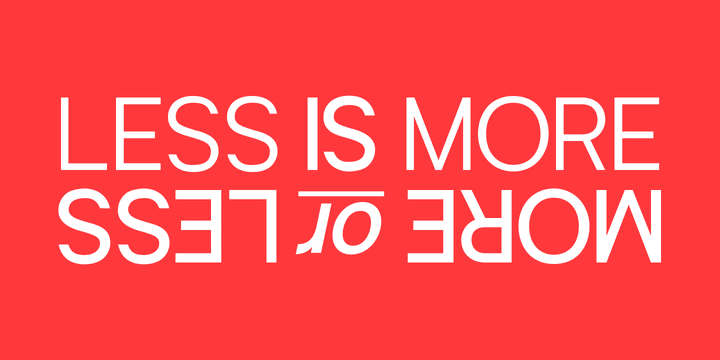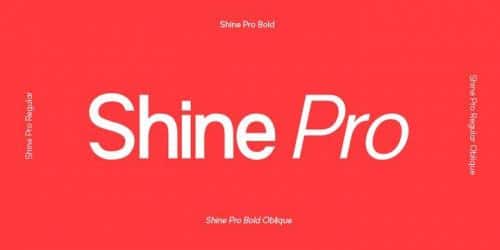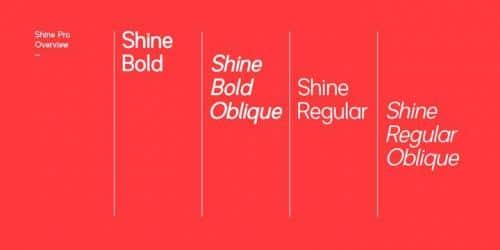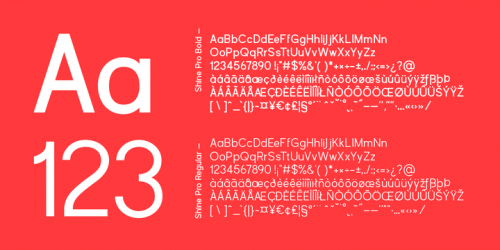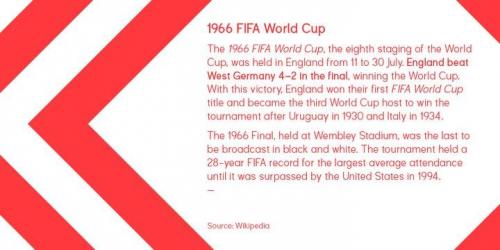
Shine Pro is the quintessential sans serif gentleman you’ve been looking for all your life. It doesn’t confuse, confound, or complicate – it politely offers up what it has as though your fontal satisfaction is the most important thing in the world; and to Shine Pro, it is.
The Regular weight is subtle, gentle – his softer side; while the Bold weight has impact and creates an imposing, important air.. In order to please everyone, Shine Pro has an impressive 10,000 kerning pairs and extensive language support, including cyrillic.
Designed with traditional influences but with a contemporary coup-de-grace, the clean, smartly turned out, and oh-so-reliable Shine Pro is ready to become your new go-to font for all matters.